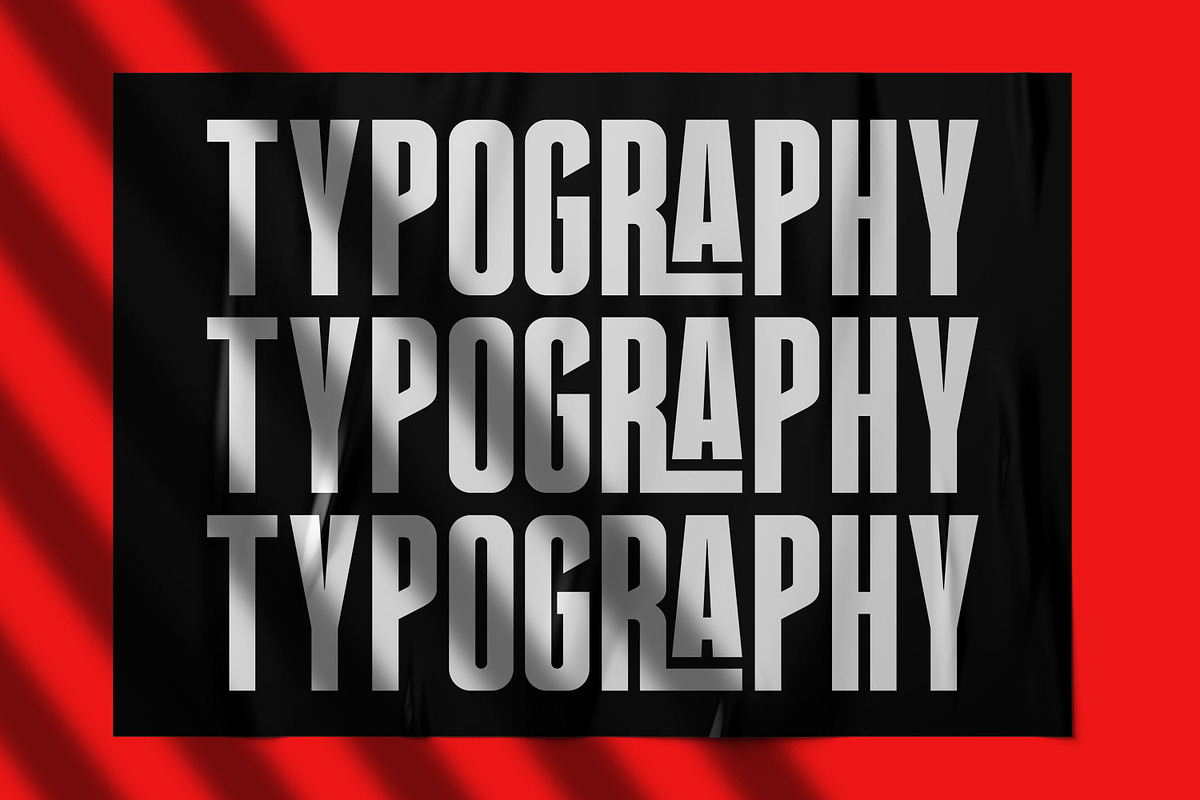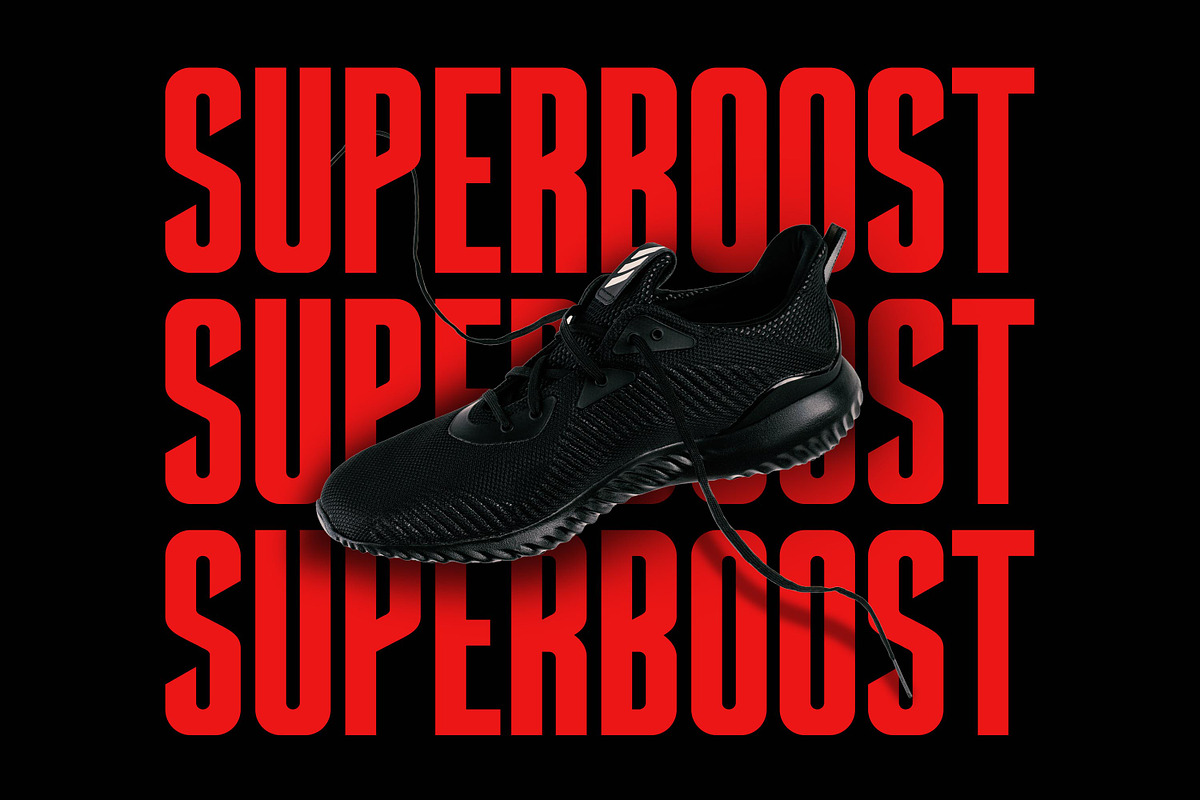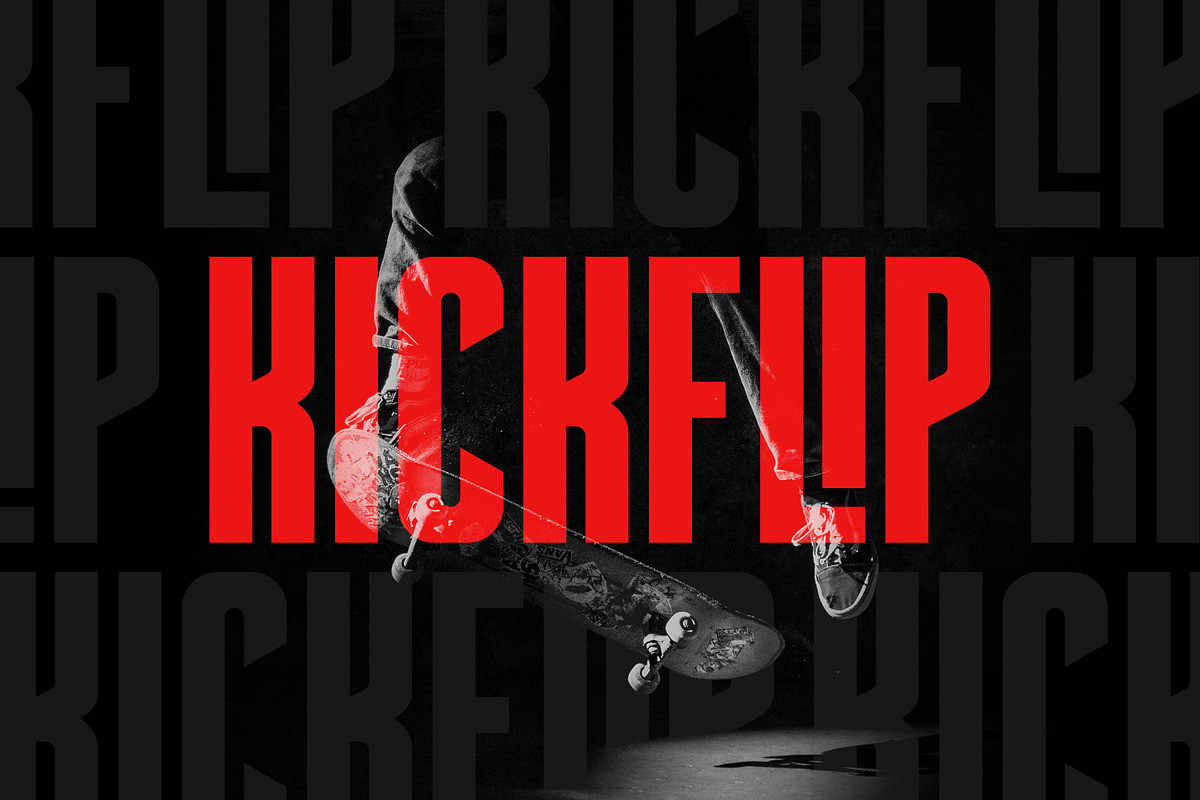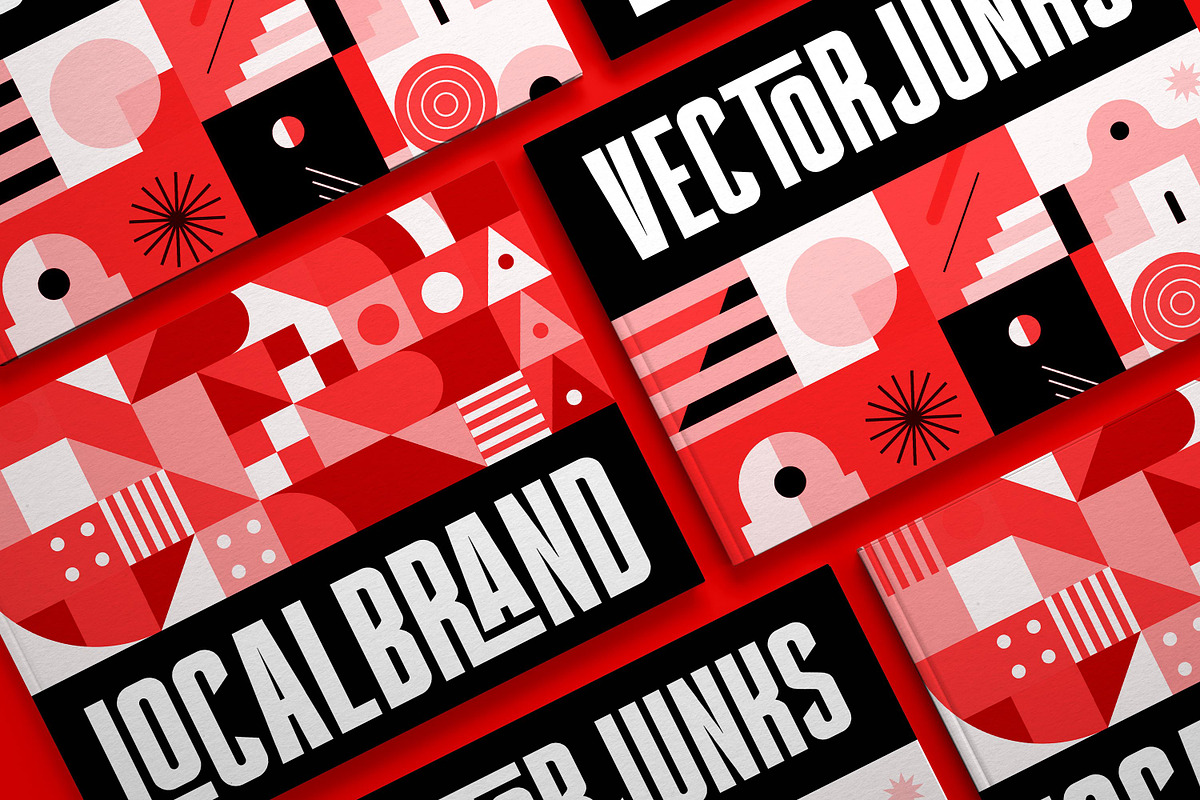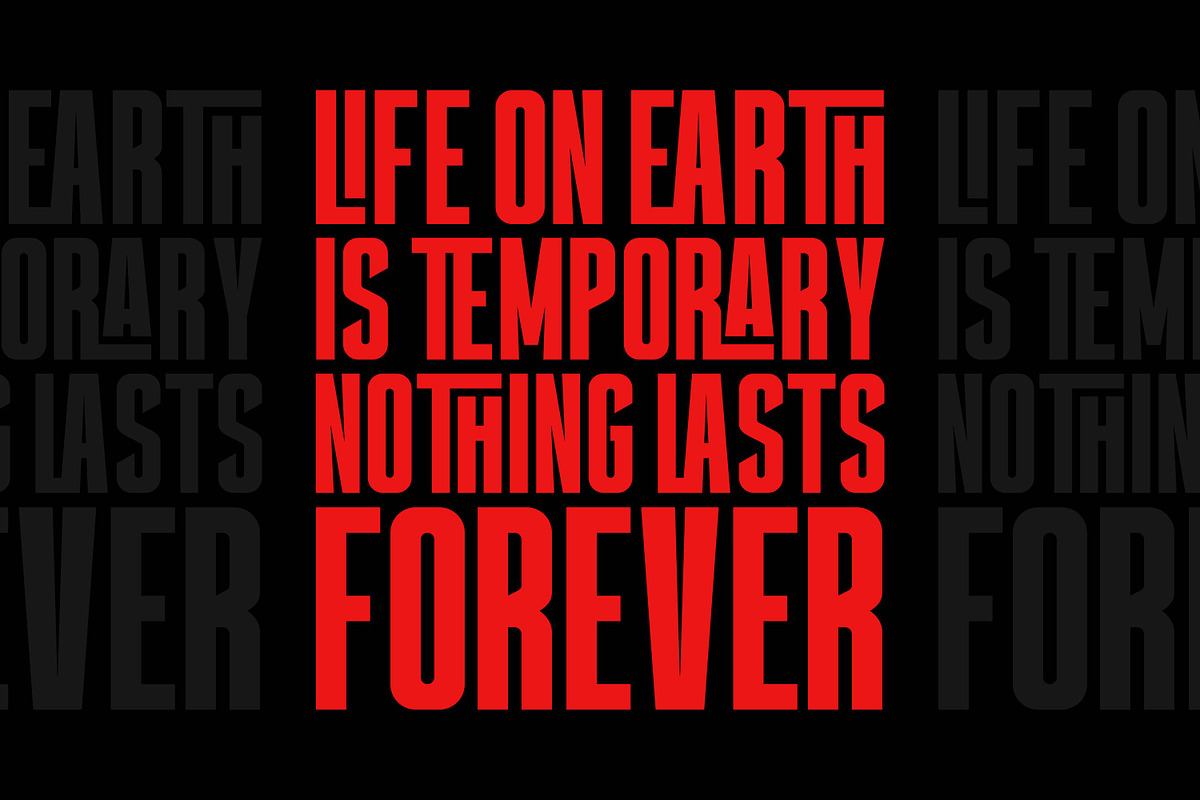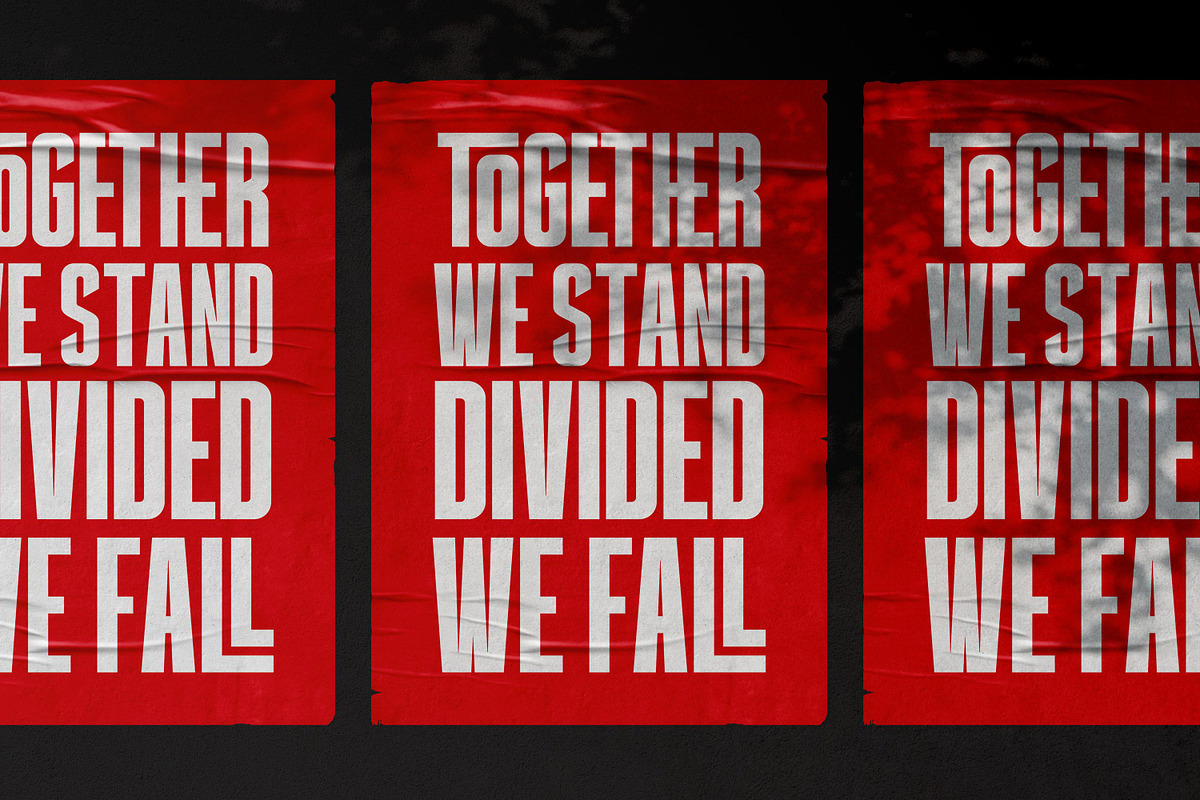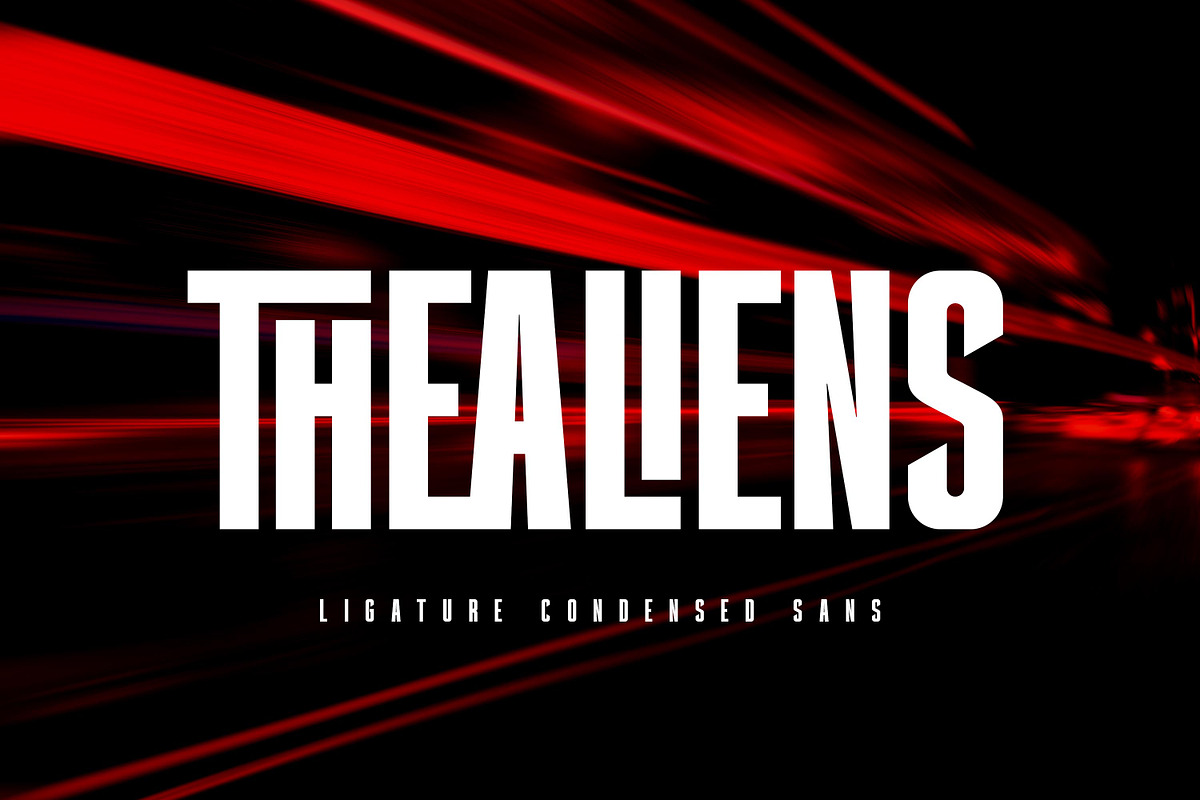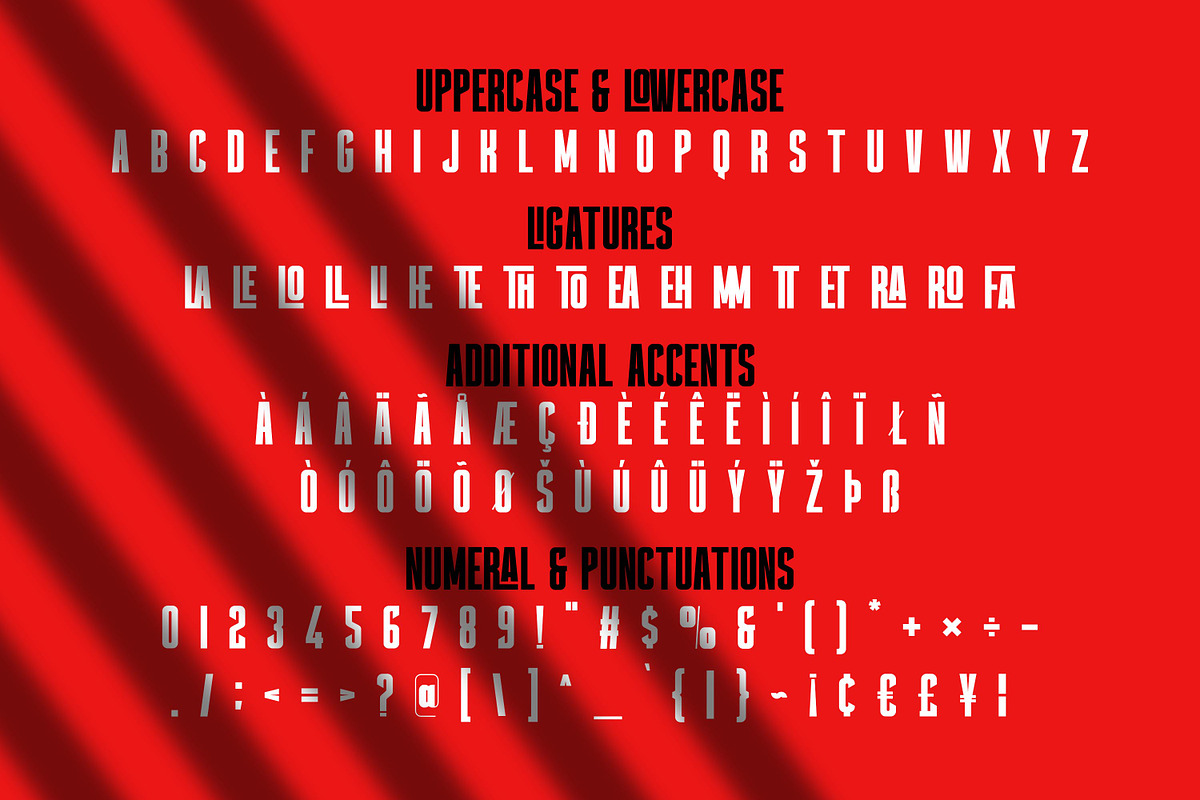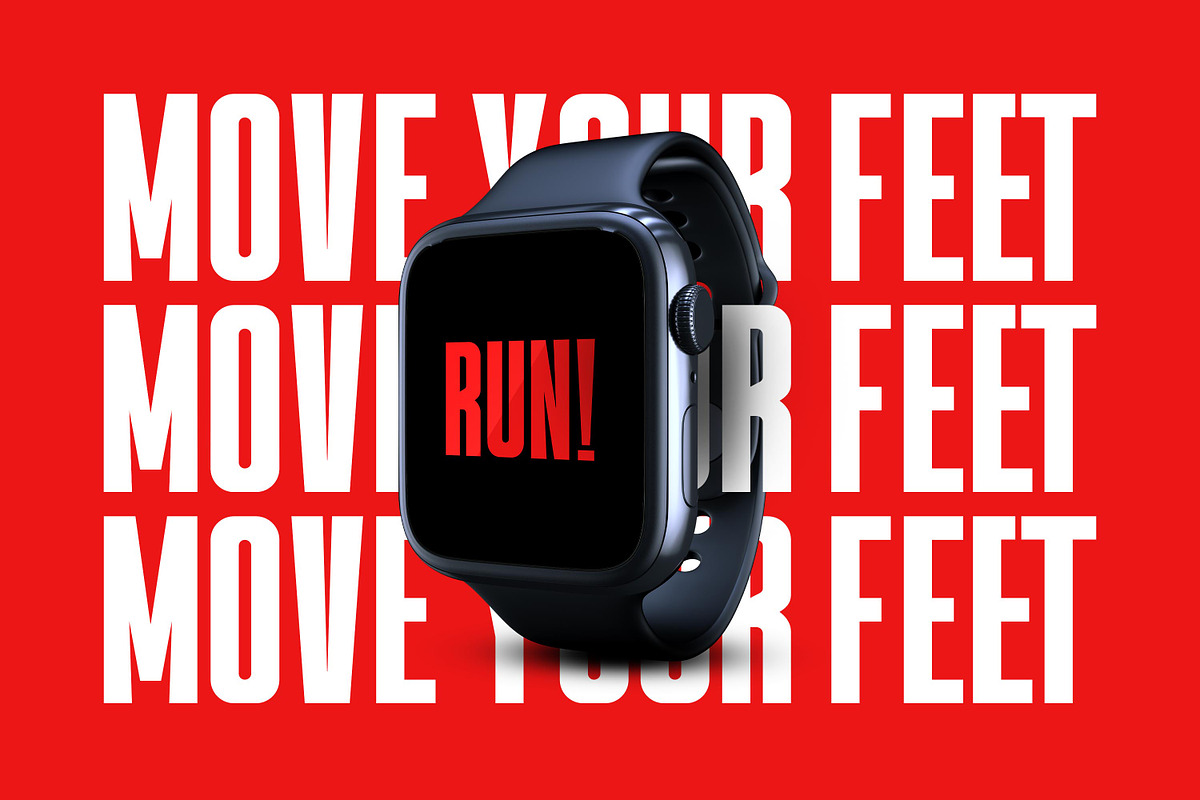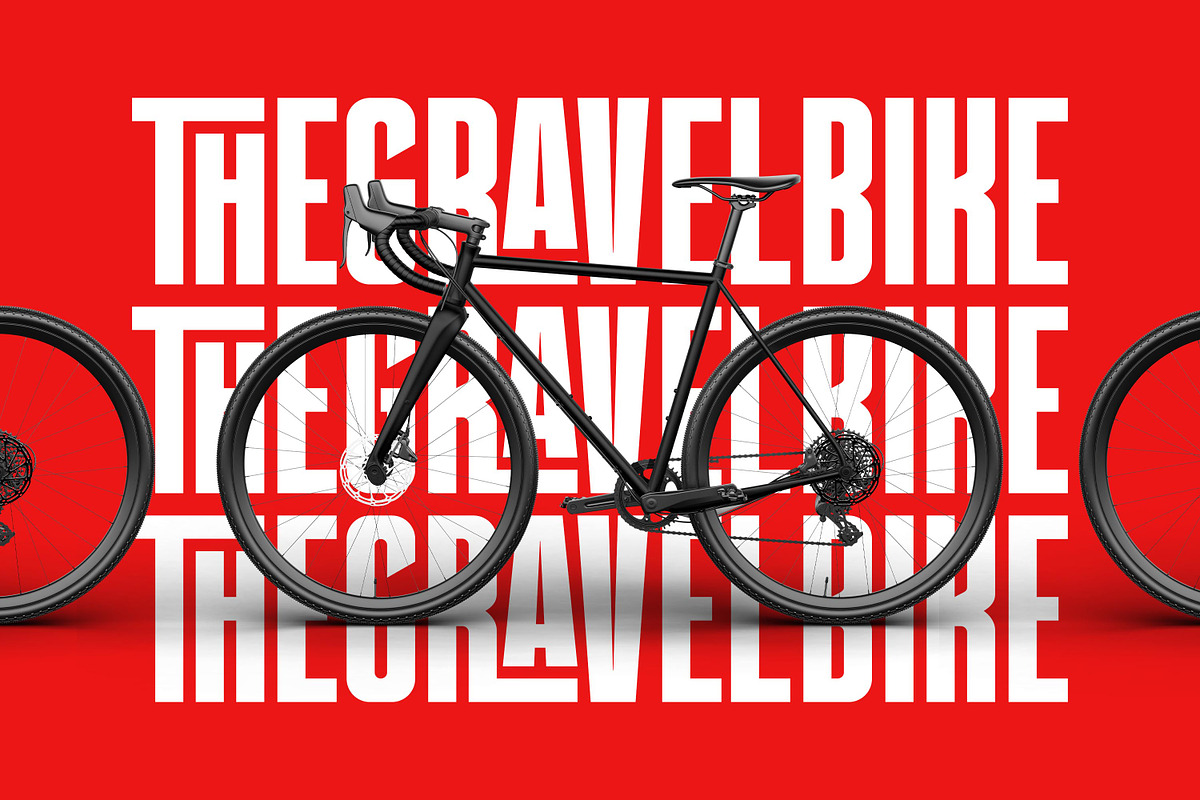
Thealiens - Ligature Condensed Sans
Hello Everyone, introduce our new product The Aliens - Ligature Condensed Sans, inspired by the title of the sports poster and We make it very energetically, taking into account the thickness and density of each gliph, along with a ligature that makes this font look unique.
Theliens font with strong and challenging nuances. very suitable for the title, typography, clothes, Poster, magazines, brochures, packaging,Websites and much more for your design needs, making your designs more modern and professional